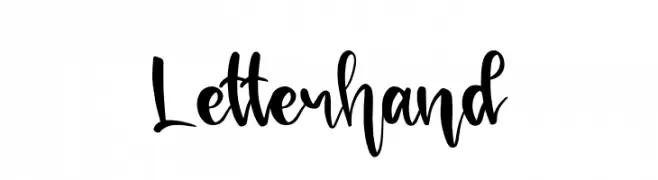
( Anke van der Meer - ankepanke.nl )
A playful, hand-drawn font with bold, rounded strokes and a whimsical style.
( Arterfak Project - Ahmad Ramzi Fahruddin - creativemarket.com/Arterfak )
A bold, angular font with a modern, geometric style.
( Atjcloth Studio - Hanif Syahputra - creativemarket.com/Atjcloth?u=Atjcloth )
A futuristic, geometric font with bold, outlined characters.
( Boris Garic )
A modern, geometric font with clean lines and uniform stroke width.
( Bou Fonts - Agustín Bou )
A tall, narrow, and modern font with consistent stroke width and elegant design.
( Cooldesignlab - Kurniadi Saputra - creativemarket.com/cooldesignlab?u=cooldesignlab )
An elegant and ornate script font with intricate loops and swirls.
( Cotbada Studio - Isfani - creativemarket.com/Cotbada_studio )
A tall, narrow font with a modern and elegant style.
( Cotbada Studio - Isfani - creativemarket.com/Cotbada_studio )
A tall, narrow, and playful handwritten font with minimal contrast.
( DM Letter31 )
A lively and elegant handwritten script font with bold uppercase and smooth lowercase letters.
( David Koffe - sarna.cl/client/web )
A bold, angular font with a modern, geometric style.
( Debut Studio - Ari Fadli - creativemarket.com/debutstudio )
A bold, cursive font with fluid, interconnected strokes.
( Doug Sheets - dougsheets.com )
A bold, classic serif font with strong, impactful characters.
( Ferdiansyah - creativemarket.com/ijemrockart )
An elegant script font with flowing, ornate letterforms and intricate swashes.
( Ferdiansyah - creativemarket.com/ijemrockart )
A sophisticated, slanted script font with elegant loops and flourishes.
( Fontscafe.com - fontscafe.com/ )
A decorative, hand-drawn font with elegant swirls and a chalk-like texture.
( Fortress Tech - www.youtube.com/channel/UCLyHUw5NcyVCILijN5vebwg )
A bold, playful font with thick, rounded strokes and a whimsical, hand-drawn style.
( Gaelleing )
A dynamic, handwritten font with an inclined, flowing style.
( Gaelleing )
A playful, handwritten font with a casual and friendly appearance.
( Gaelleing )
A playful, rounded font with smooth curves and a friendly appearance.
( Gaelleing )
A bold, outlined font with a modern and clean design.
( Gaelleing )
A playful, dotted font with a hand-drawn aesthetic, perfect for creative projects.
( Grizel Hernandez )
A playful, hand-drawn font with characters featuring whimsical faces.
( Harried Type - H.G. Blakeman - harriedtype.com )
A playful, handwritten font with a casual and whimsical style.
( Hazel Abbiati - diamondidiocy.tumblr.com )
A pixelated, retro-style font with a blocky, geometric design.
( Hazel Abbiati - diamondidiocy.tumblr.com )
A bold, pixelated font with a retro digital aesthetic.
( Hazel Abbiati - diamondidiocy.tumblr.com )
A pixelated, retro-style font with a uniform, grid-like appearance.
A futuristic, geometric font with bold, angular lines and a hollow structure.
A futuristic, angular, and italic font with outlined characters.
( JBFoundry - Jean Boyault - jean.boyault.pagesperso-orange.fr/ )
A whimsical, looped serif font with decorative elements and medium weight.
( Kylie Morris )
A playful, curly, hand-drawn font with a whimsical style.
( LetterStuff Typefoundry )
A bold, playful handwritten font with thick strokes and a casual style.
( Letterhend Studio - Hendry Juanda - creativemarket.com/letterhend )
A dynamic and fluid script font with elegant, flowing letterforms.
( Letterhend Studio - Hendry Juanda - creativemarket.com/letterhend )
A bold, expressive script font with flowing cursive letterforms.
( Lettersiro Studio - Muhammad Sirojuddin - creativemarket.com/Lettersiro )
A bold, dynamic script font with fluid, connected letterforms.
( Lettersiro Studio - Muhammad Sirojuddin - creativemarket.com/Lettersiro )
A bold, elegant script font with flowing, interconnected letters.